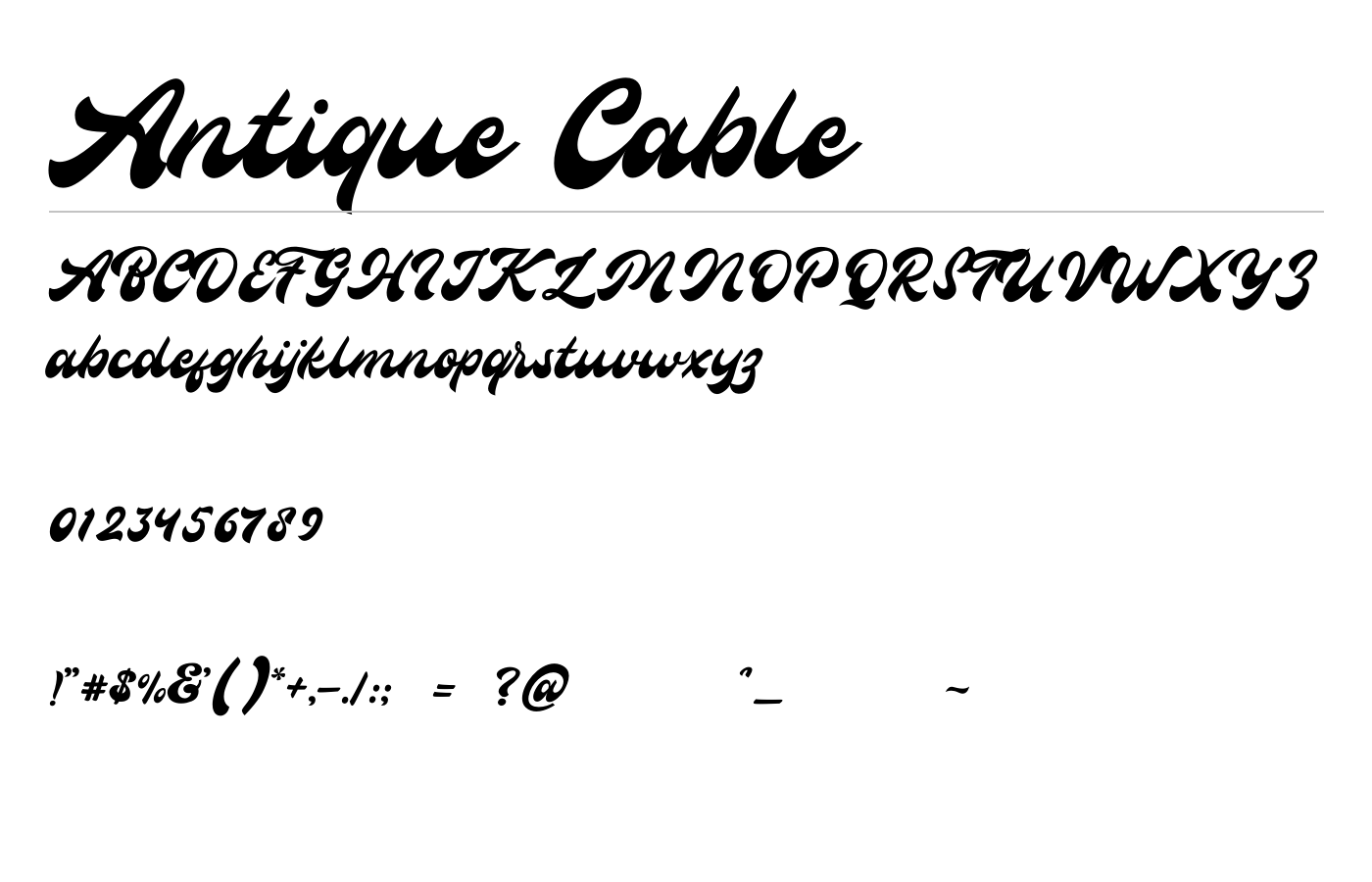
Antique Cable is a bold, script-style font with a strong vintage vibe, featuring smooth, thick strokes and elegant, flowing letterforms that evoke a sense of classic sophistication. Its high contrast and connected letters make it perfect for eye-catching headlines, logos, or packaging that seek to combine traditional charm with a confident, stylish personality. This font works best in designs where a distinctive, retro-inspired script can add warmth and character.
Antique Cable Font
About Antique Cable Font
| Font family | Antique Cable Font |
| Designer | Ade Santani |